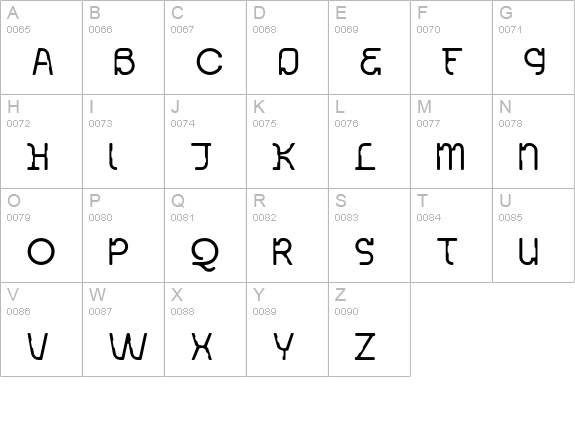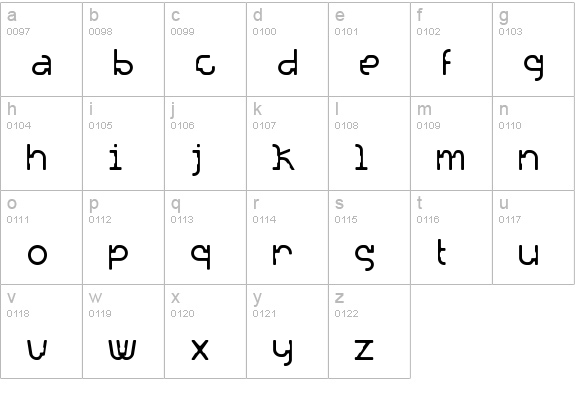
Acetone-Regular Font Details
Acetone-Regular is the standard, neutral variant in the Acetone typeface family \xE2\x80\x94 well suited to general body text, paragraphs, and standard typographic work.
Acetone-Regular is a sleek and modern sans-serif font that exudes sophistication and elegance. With its clean lines and balanced proportions, this font is perfect for a wide range of design projects, from branding to editorial design. The timeless appeal of Acetone-Regular makes it a versatile choice that can easily adapt to any style or aesthetic. What sets Acetone-Regular apart is that it is not only visually stunning, but also free to download. Yes, you read that right - this high-quality font is freely available for download at FontsMarket.com. So whether you're a seasoned designer looking to add a new font to your collection or a beginner exploring typography for the first time, Acetone-Regular is a fantastic choice that won't cost you a thing. Don't miss out on the opportunity to enhance your creative projects with the elegance and versatility of Acetone-Regular. Download this exceptional font for free today and take your designs to the next level!